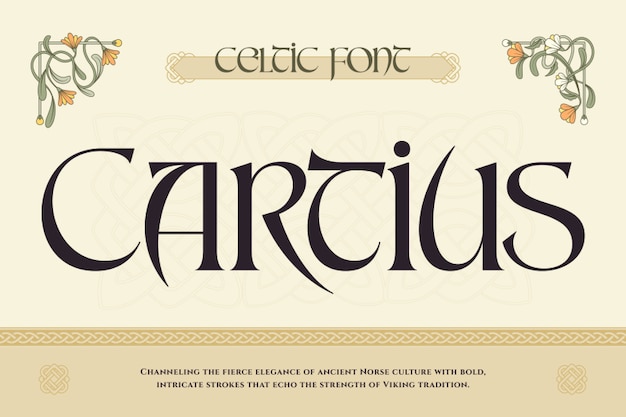
Cartius Font
Cartius is a Celtic-inspired font that brings the charm of Irish heritage to life with its antique, medieval design. Its intricate letterforms evoke the spirit of ancient manuscripts and classic Gaelic scripts. Perfect for historical or fantasy-themed projects, Cartius adds a timeless, mystical feel to logos, posters, and storytelling designs.